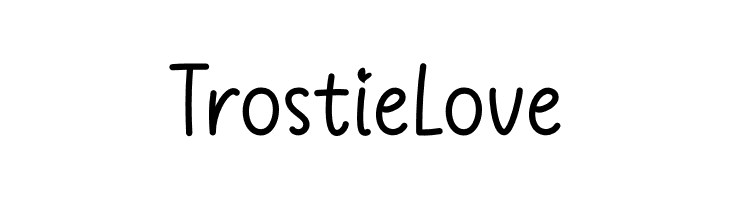
An elegant, flowing script font with a sophisticated, handwritten style.
( Neospace Circuit is an avant-garde typeface designed for lovers of technology and science fiction. With its elegant extended proportion and geometric minimalism, Neospace redefines typographic aesthetics with a perfect fusion between modern and futuristic )
A futuristic, circuit-inspired font with geometric lines and dot accents.
A playful, handwritten font with smooth, rounded edges and a casual style.
A playful, rounded font with smooth curves and a friendly appearance.
A playful, handwritten font with a whimsical and friendly style.
A modern, elegant font with high contrast and sharp serifs.
A playful, bold font with rounded edges and a friendly style.
A bold, expressive handwritten font with a rough, textured style.
A tall, narrow font with a modern, geometric design.
A bold, geometric font with a modern, digital aesthetic.
An elegant, classic italic font with a traditional and sophisticated style.
A playful, decorative font with polka dot patterns and a whimsical script style.
A readability-focused font with distinct shapes and heavier bottoms, aiding dyslexic readers.
A bold, accessible font designed to improve readability for dyslexic readers.
A bold, italic font designed for readability and accessibility, ideal for dyslexic readers.
A dyslexia-friendly italic font with unique slants and varying thickness for enhanced readability.
A dyslexia-friendly font with distinct, weighted letterforms for improved readability.
A bold, accessible font designed to enhance readability with unique, distinguishable letterforms.
A bold, italic font designed for improved readability, especially for dyslexic readers.
An accessible, italic font with distinct, weighted letterforms for enhanced readability.
A monospaced font designed for readability, featuring distinct, weighted letterforms.
Playful and rounded handwritten font.
A playful font with heart-shaped cutouts in uppercase letters, ideal for romantic themes.
A playful, brush-stroke font with a hand-drawn, artistic style.
A bold, chaotic font with jagged, distressed edges and dynamic energy.
A playful, handwritten font with a whimsical and romantic touch.
A playful, hand-drawn doodle font with dog-themed illustrations.
A whimsical, curly script font with elegant swirls and a playful handwritten style.
A playful, handwritten font with a whimsical and personal touch.